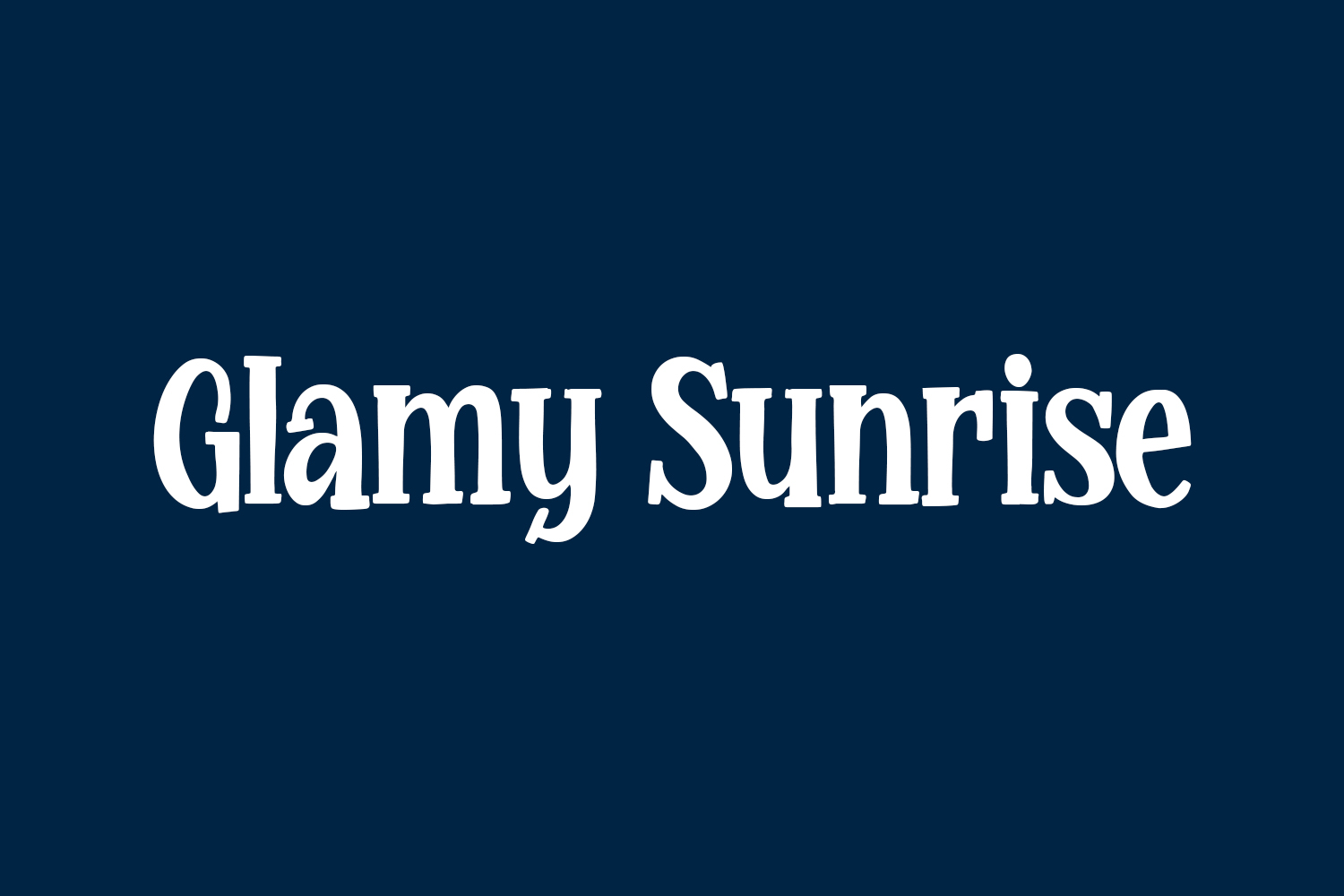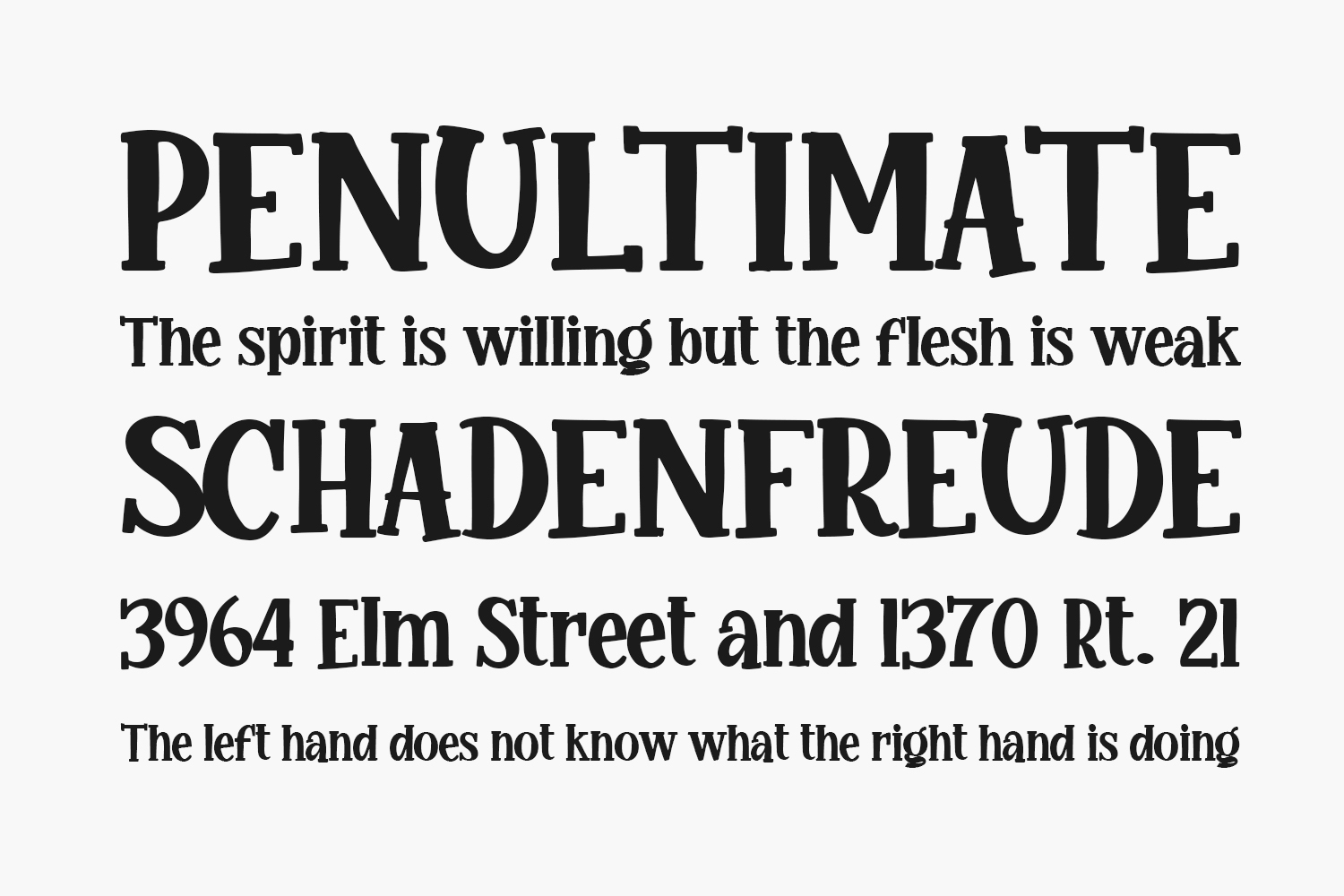
Glamy Sunrise Free Font is a quirky, casual, and fun serif font. Whether you use it for cartoon related designs, children games, or just any creation that requires a lovely touch, this font will be an amazing choice. Glamy Sunrise Free Font was designed by Bangkit Tri Setiadi and is free for personal use only. Please purchase the full version for commercial use.
Designed by Bangkit Tri Setiadi